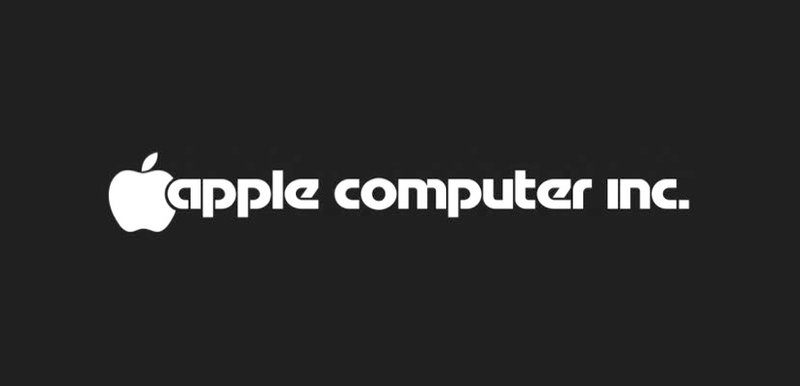
Apple, Trapper Keeper, and Reebok: Three of the most well-known brands of the 1980s, and three companies that used the same futuristic-looking typeface to do it. So why isn't the typeface a classic like other period pieces *cough*Helvetica*cough*? Fate is a funny thing.
Today Fonts In Use and BrandNew point out the odd case of Motter Tektura, a typeface created in 1975 by the Austrian designer Othmar Motter, who died in 2010. If you were alive in the late 1970s or 80s, you'll recognize it as the former font used in Apple's early logos, as well as those of Trapper Keeper and Reebok—which kept it in use well into contemporary times.
Tektura actually played a major role in the evolution of Apple's identity. And when the company adopted it as its logo type, the bite mark was rounded out to fit Tektura's curved "A" letterform, and it stayed that way long after Tektura was retired:
In fact, you could argue that Apple's in-house typefaces like Chicago mimic certain aspects of Tektura. Steve Jobs even used Tektura on his business cards in 1979:
While Motter, and his Tektura, might be household names within the typography world, they certainly aren't well-known to the general public. Yet like famous typefaces like Helvetica and Arial, Tektura played a major role in early consumer technology (and puffy file folders!). So what happened? Well, it's hard to say, but there are a few explanations.
Fonts In Use points out that there's no authorized digital version of Tektura, which would make sense—in 1975, or even 1979, some typefaces were still drawn as analog letterforms. Tektura arrived at the tail end of that era, and seemingly never made the leap. What's more, Font Feed points out that Motter moved away from type design after those successful years, focusing on logos instead.
But deep down, it might have more to do with the endless, rotating wheel of "good taste." Helvetica, a typeface that was designed in 1957, only really saw a resurgence over the past decade. The popularity of "retro" design comes in cyclical waves, after all. Just last week Trapper Keeper announced it was bringing back its own old school puffy sleeves. Perhaps Tektura is almost due for its own renaissance. [BrandNew]
That said, yeah, Motter Tektura, gimme some more of that action.